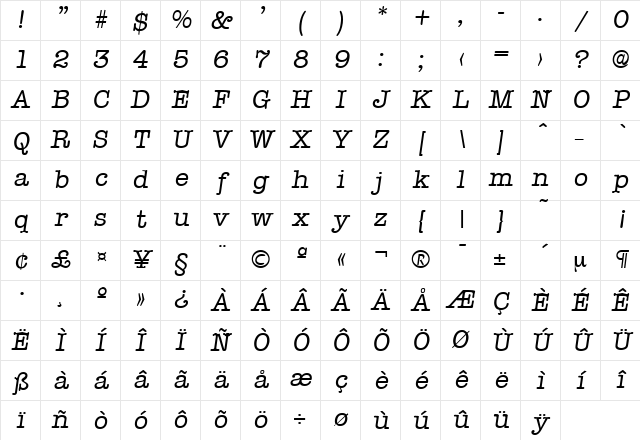
Complete Typewriter-Serial DB RegularItalic glyph index. Displaying only characters natively supported by Typewriter-Serial DB RegularItalic font.
Typewriter-Serial DB uses fixed-width spacing throughout, giving it the structured, systematic character associated with coding environments and technical documentation. The slanted form adds forward momentum and visual energy.